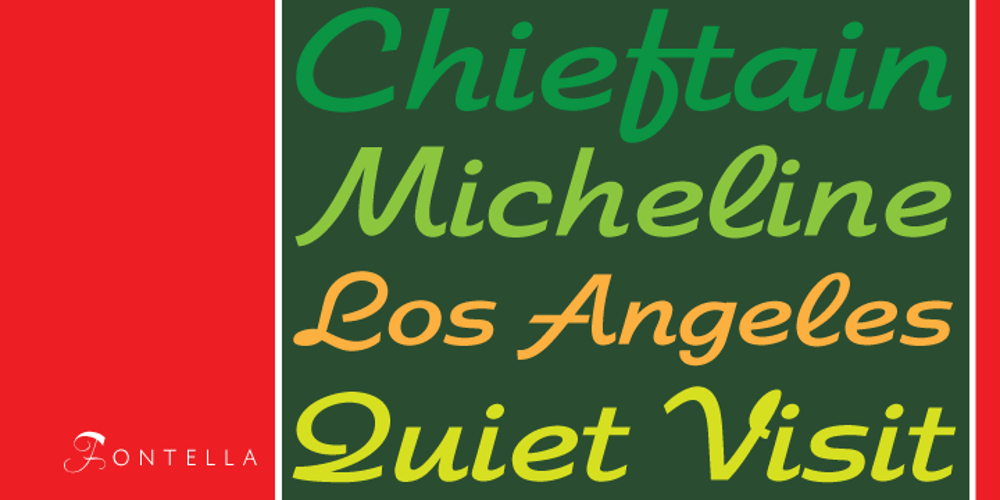
Fontella Font Family was designed by Aldo Novarese, Rebecca Alaccari and published by Canada Type. Fontella contains 1 styles and family package options. Italian type design master Aldo Novarese was not famous for making calligraphic designs, nor had he any interest in them. He is much better known for his text faces, and quite innovative sans serif and decorative designs which became the definition of what we now know as techno and modern. But in 1968, Novarese surprised everyone with a fantastic flowing deco script entitled Elite. Novarese’s formula of simple soft curves and toned-down swashes makes for one of the most unique alphabets ever seen, not to mention one of the best flowing and most legible scripts. This is now its digital incarnation, named Fontella. Fontella’s applications are virtually limitless. This is the sort of script that can feel at home pretty much anywhere; a sign, a fridge magnet, a bumper sticker, a greeting card, a movie poster, a book cover, music artwork, magazine ads, newsletter headlines, etc. Digitized from original specimen and expanded with a few built-in alternates and ligatures by Rebecca Alaccari, the font was named after the famed jazz singer Fontella Bass. These letters are just so sweet they had to be called Fontella.